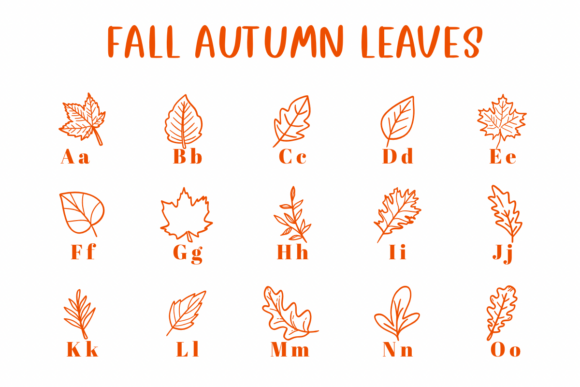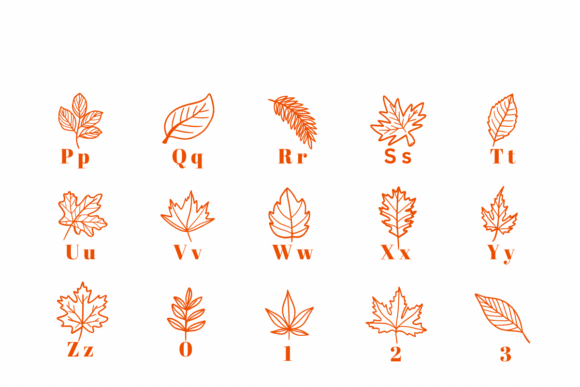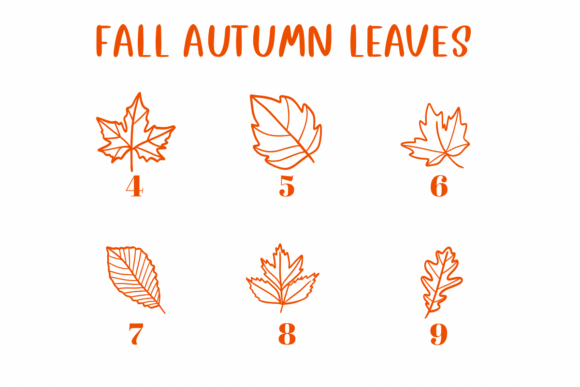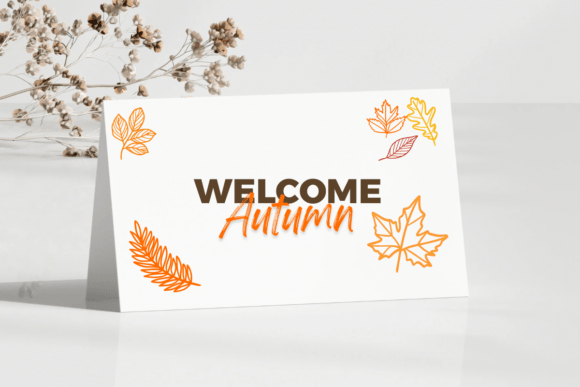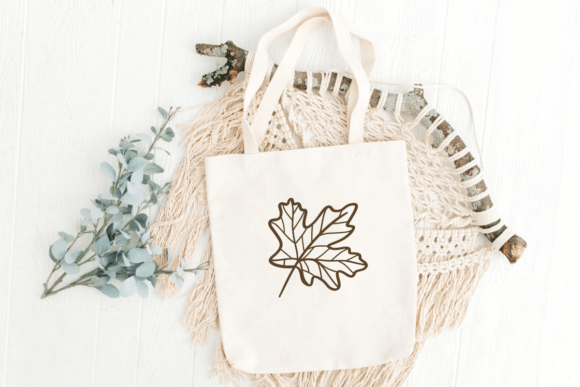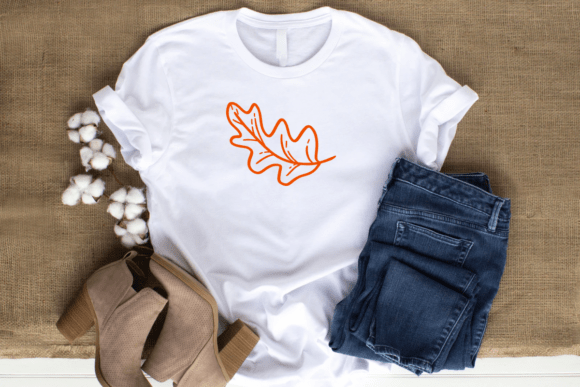
Fall Autumn Leaves Font: Elevate Your Seasonal Designs with Hand-Drawn Charm
As the seasons change and autumn arrives, designers and crafters are on the lookout for unique and captivating visual elements to infuse their projects with a seasonal ambiance. This is where the Fall Autumn Leaves Font comes into play – a highly useful Dingbats Font that offers a comprehensive collection of hand-drawn seasonal illustrations. Unlike traditional text fonts, this dingbat set is packed with charming outline drawings of various types of fall leaves, small arrows, and decorative swooshes, all easily accessible by typing letters and characters.
A Light, Organic Style Perfect for Rustic Aesthetics
The Fall Autumn Leaves Font boasts a light, organic style that is perfectly suited for a rustic aesthetic. The illustrations are meticulously hand-drawn, offering a natural and cozy feel that is sure to elevate your seasonal designs. Whether you’re working on autumn event invitations, Thanksgiving décor, educational materials, or natural product packaging, this dingbat set is an indispensable tool in your design arsenal.
Instant, Ready-to-Use Vector Graphics
One of the significant advantages of the Fall Autumn Leaves Font is that it provides instant, ready-to-use vector graphics. This means that designers can save significant time that would otherwise be spent drawing or searching for illustrations. The vector graphics are scalable to any size without losing quality, making them perfect for a wide range of applications, from small crafts to large-scale designs.
The Fall Autumn Leaves Font is a dream come true for designers and crafters looking to add a touch of seasonal charm to their projects. Whether you’re a professional designer working on a client’s autumn-themed campaign or a crafter creating seasonal decorations for your home or business, this dingbat set offers a wealth of creative possibilities.
Use Cases for Fall Autumn Leaves Font
- Autumn Event Invitations: Create beautiful and inviting autumn event invitations that set the tone for your seasonal celebration.
- Thanksgiving Décor: Add a personal touch to your Thanksgiving décor with custom place cards, centerpieces, and other decorative elements featuring the Fall Autumn Leaves Font.
- Educational Materials: Make learning fun and engaging with educational materials that incorporate the charming illustrations of the Fall Autumn Leaves Font.
- Natural Product Packaging: Elevate your natural product packaging with a seasonal touch that resonates with customers looking for eco-friendly and sustainable products.
- Seasonal Crafts: Use the Fall Autumn Leaves Font to create a wide range of seasonal crafts, from handmade cards to decorative wall art.
Why Choose Fall Autumn Leaves Font?
There are several reasons why the Fall Autumn Leaves Font stands out as a go-to resource for designers and crafters:
- Unique and Hand-Drawn Illustrations: The font offers a unique set of hand-drawn illustrations that are not easily found elsewhere.
- Easy to Use: Simply type letters and characters to access a wide range of seasonal illustrations.
- Instant Vector Graphics: Save time with instant, ready-to-use vector graphics that can be scaled to any size.
- Rustic Aesthetic: Achieve a light, organic, and rustic aesthetic that is perfect for autumn-themed designs.
The Fall Autumn Leaves Font is a versatile and highly useful Dingbats Font that offers a comprehensive collection of hand-drawn seasonal illustrations. Its light, organic style and rustic aesthetic make it perfect for a wide range of autumn-themed designs, from event invitations and Thanksgiving décor to educational materials and natural product packaging. With its instant, ready-to-use vector graphics, designers and crafters can save time and effortlessly infuse their projects with a natural, cozy, and artistically hand-sketched seasonal ambiance.
Whether you’re a professional designer or a crafter looking for a unique touch, the Fall Autumn Leaves Font is an indispensable resource that will elevate your seasonal designs and help you create captivating visual elements that resonate with your audience.